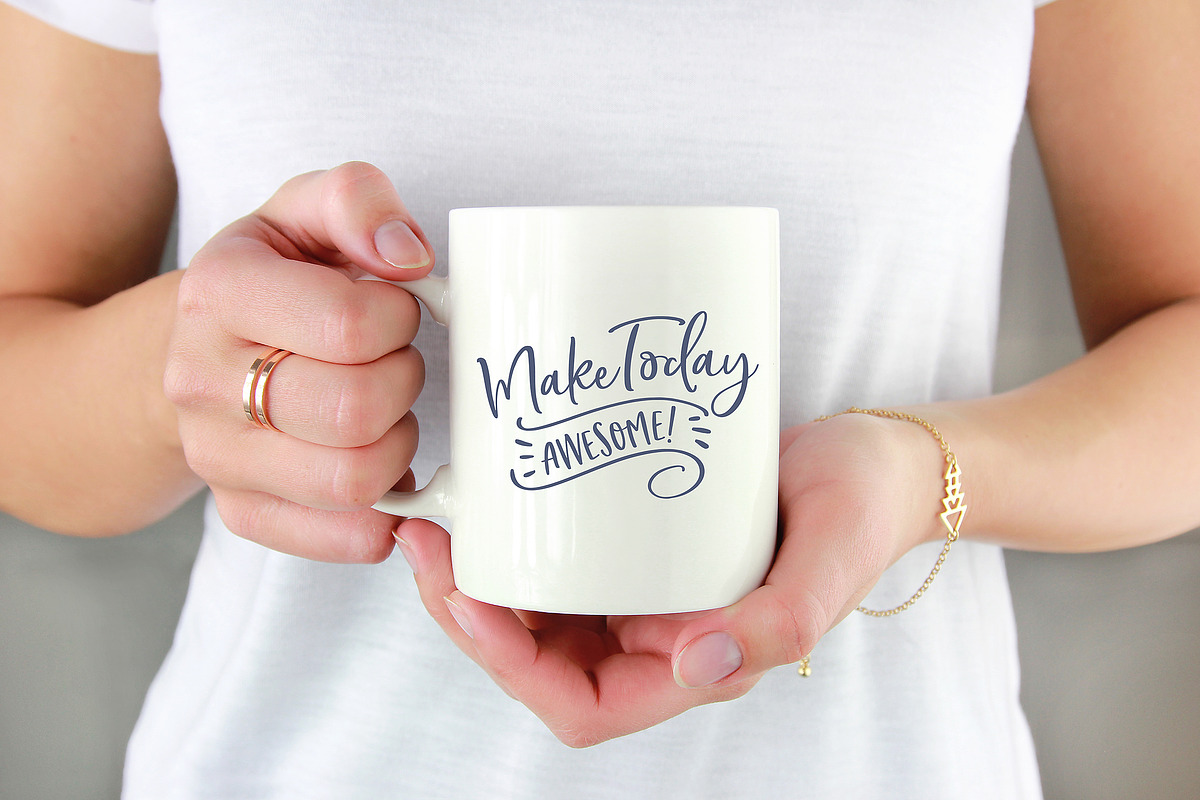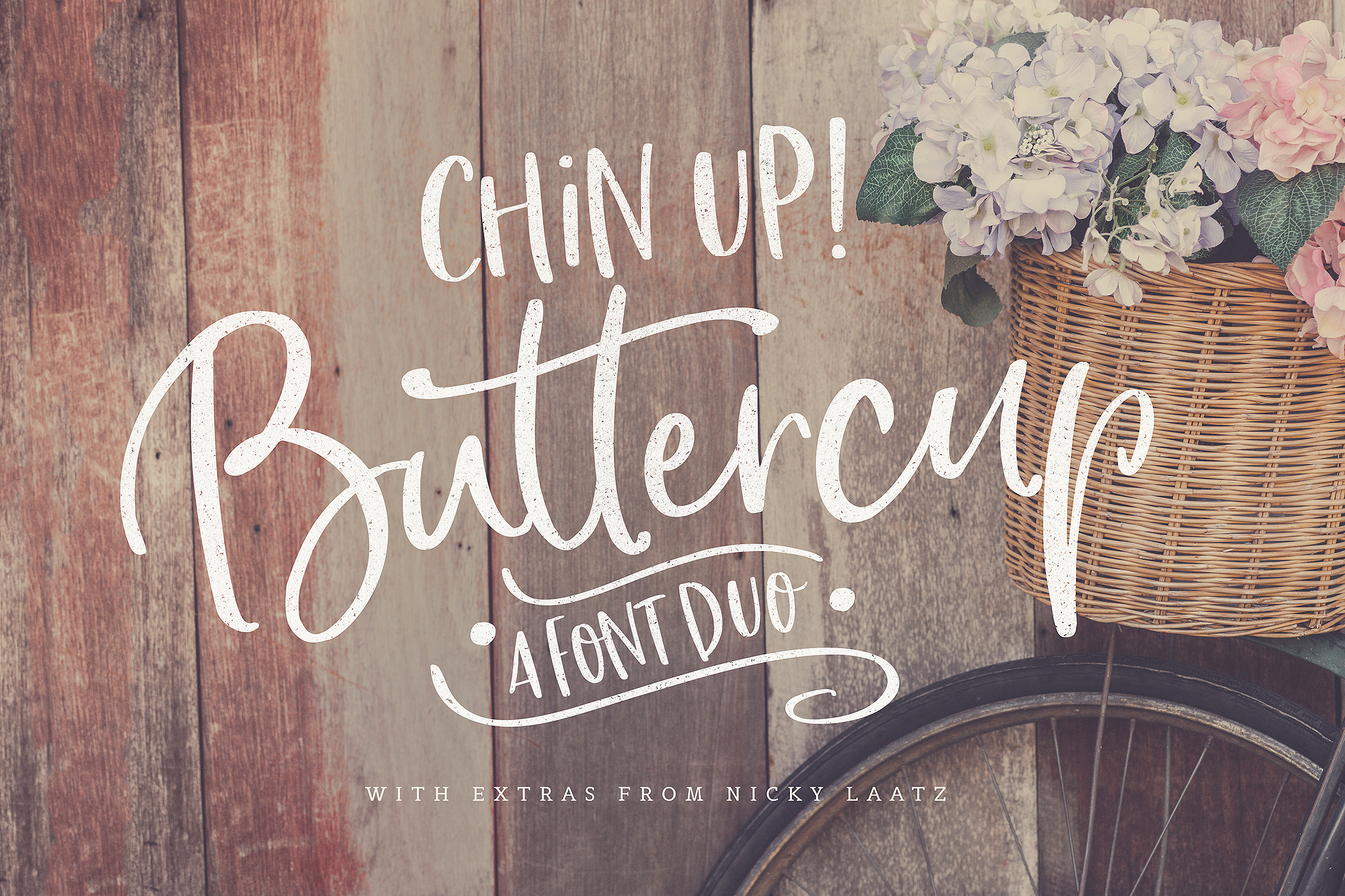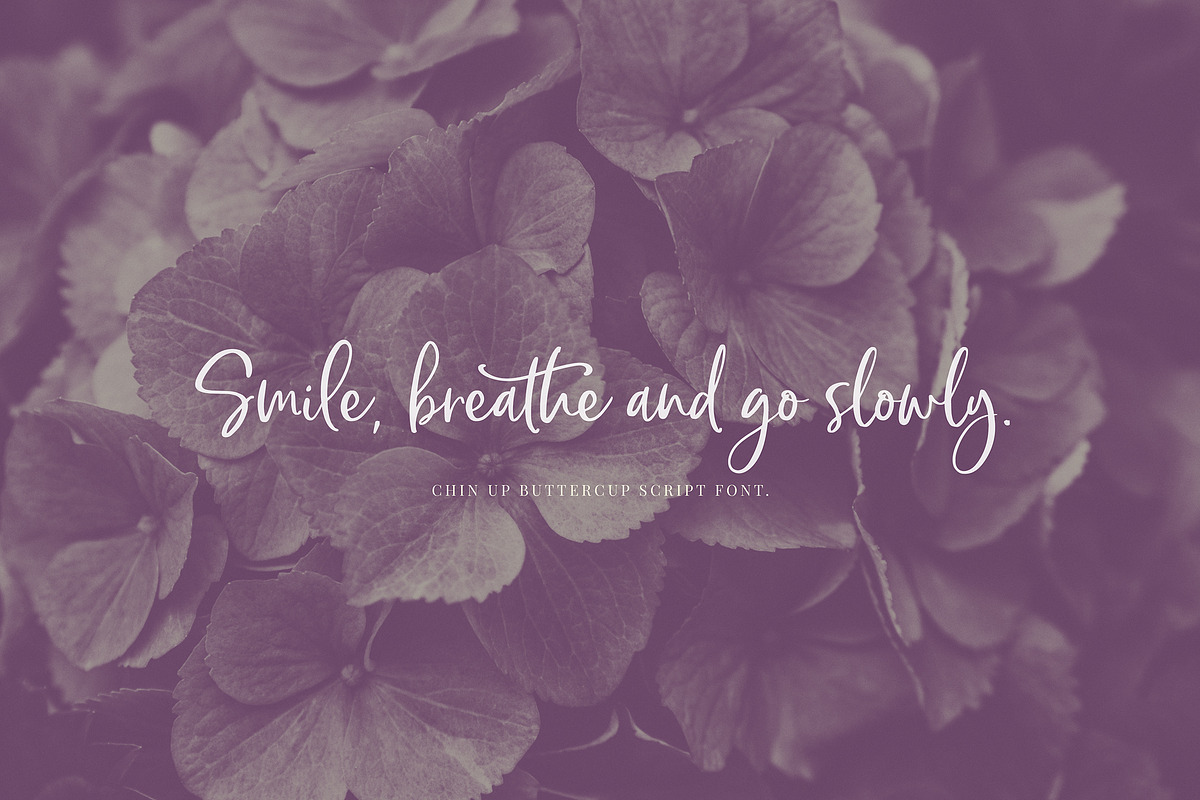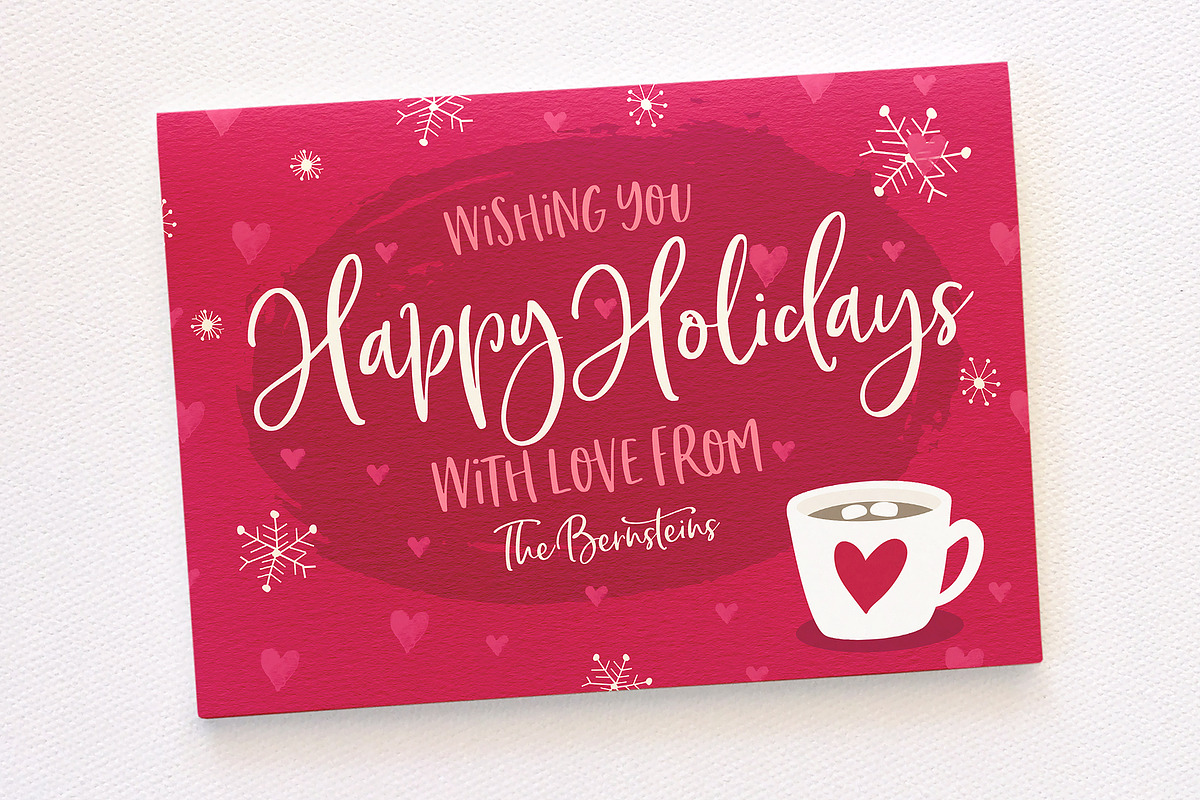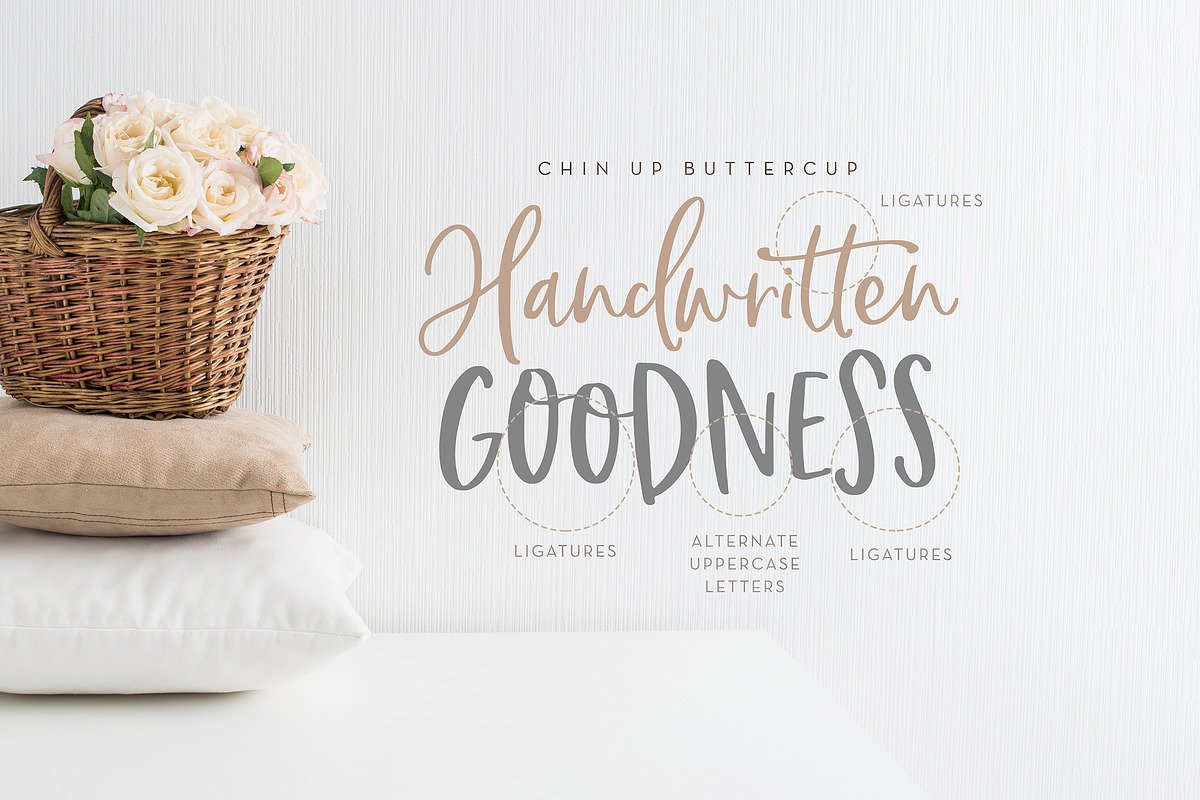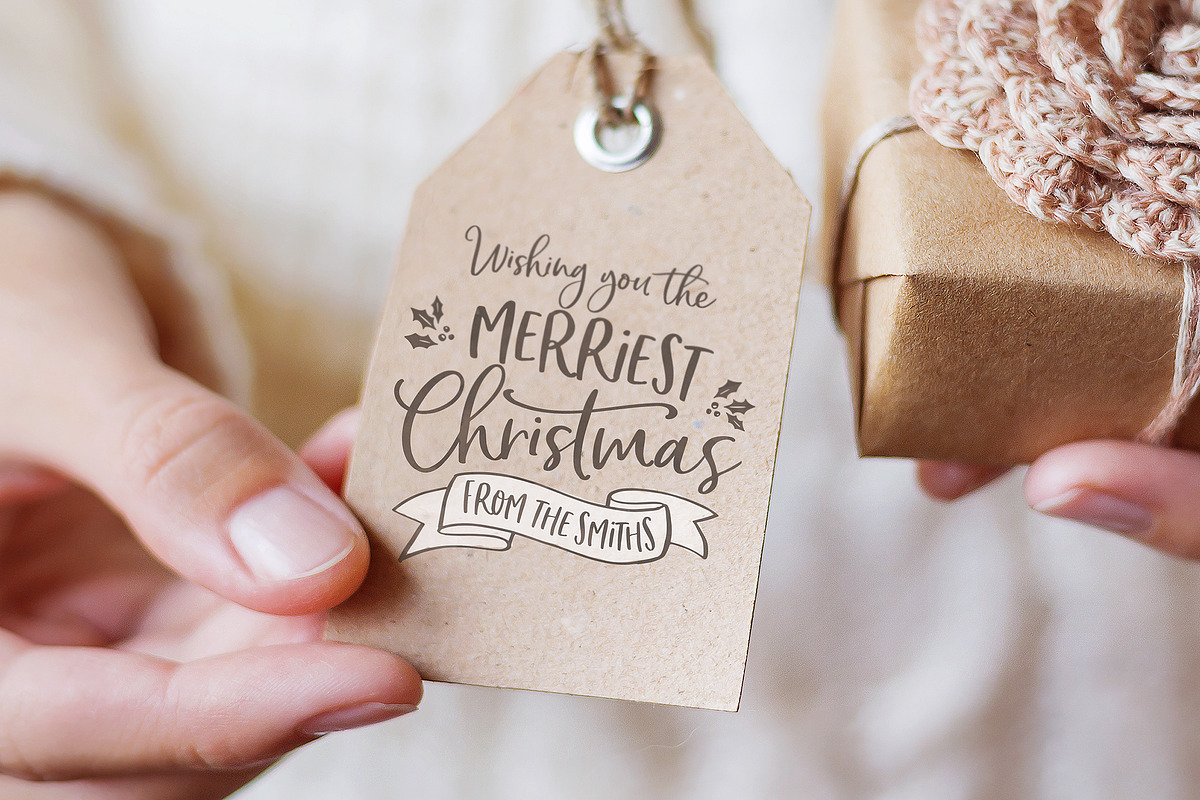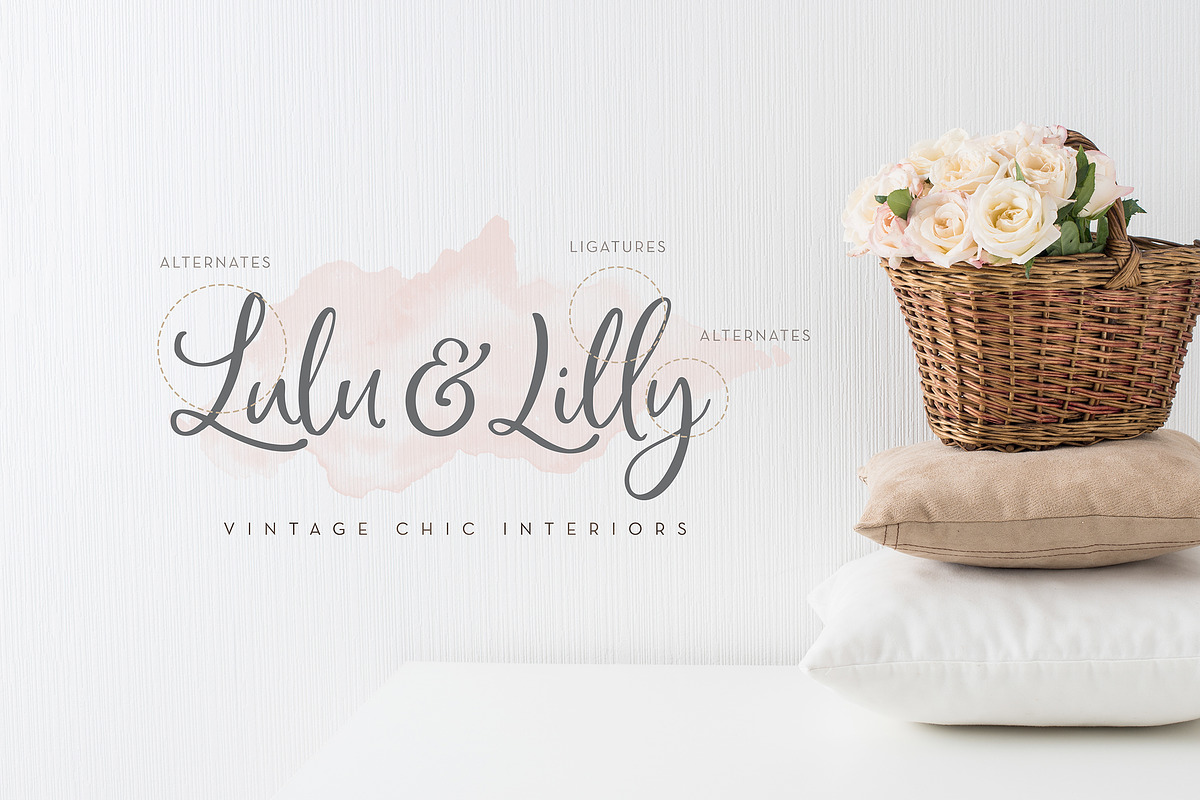
Chin Up Buttercup! Font Duo & Extras
🌷🌷Introducing Chin up! Buttercup! A Perfectly Playful new font pair with a handy set of complimentary Illustrations.🌷🌷
Creative and Casual, together or apart, Chin up Buttercup Fonts and Illustrated Doodles allow you to make tons of gorgeous typographic designs in a jiffy, just in time for all your Christmas labels, cards and branding too!
The Duo consists of a Whimsical Script , and a playful 'Cutecaps' Sans serif font.
ALTERNATE LETTERS
The script has an alternate upper and lowercase charcter set, as well as a large selection of Standard Ligatures - allowing you to make your design truly unique.
Not to be left out , the 'Cutecaps' comes with alternate characters in the uppercase set and cute little ligatures as well.
CREATIVE ILLUSTRATIONS
To add to the creative punch of this pack, you get over 40 handy doodle illustrations to use with Chin Up Buttercup fonts to create the cutest Typo designs ever! See the previews above to get some inspiration on how you can use them :)